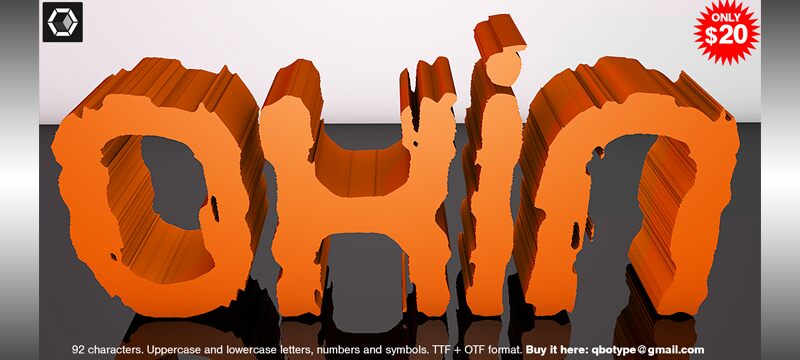
Oxin Brush by Carlos Matteoli is a free eroded display font with broad, rounded letters and a rough-cut silhouette. Soft rectangular forms feel sturdy, but broken edges and uneven joins create a handmade stamp texture.
Independent food and music brands can use it for packaging, posters, and merchandise with an informal workshop look. It also suits event signage. There, the lettering can become part of a distressed label or painted shop sign instead of serving as neutral text.